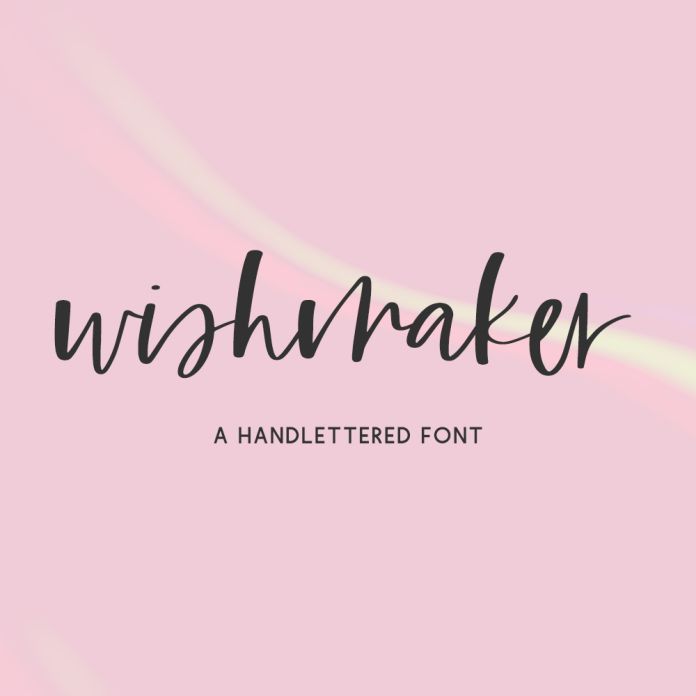
Introducing Wishmaker, a handwritten modern calligraphy font. Wishmaker mimics handwriting, and is a little messy, and a little bouncy, perfect for trendy, modern projects.
- 26 alternates
- 27 ligatures - ar, as, bb, bl, cc, ch, dd, ee, er, es, ff, gg, gh, is, it, ll, mm, nn, oo, or, os, pp, rr, ss, tt, ur, us